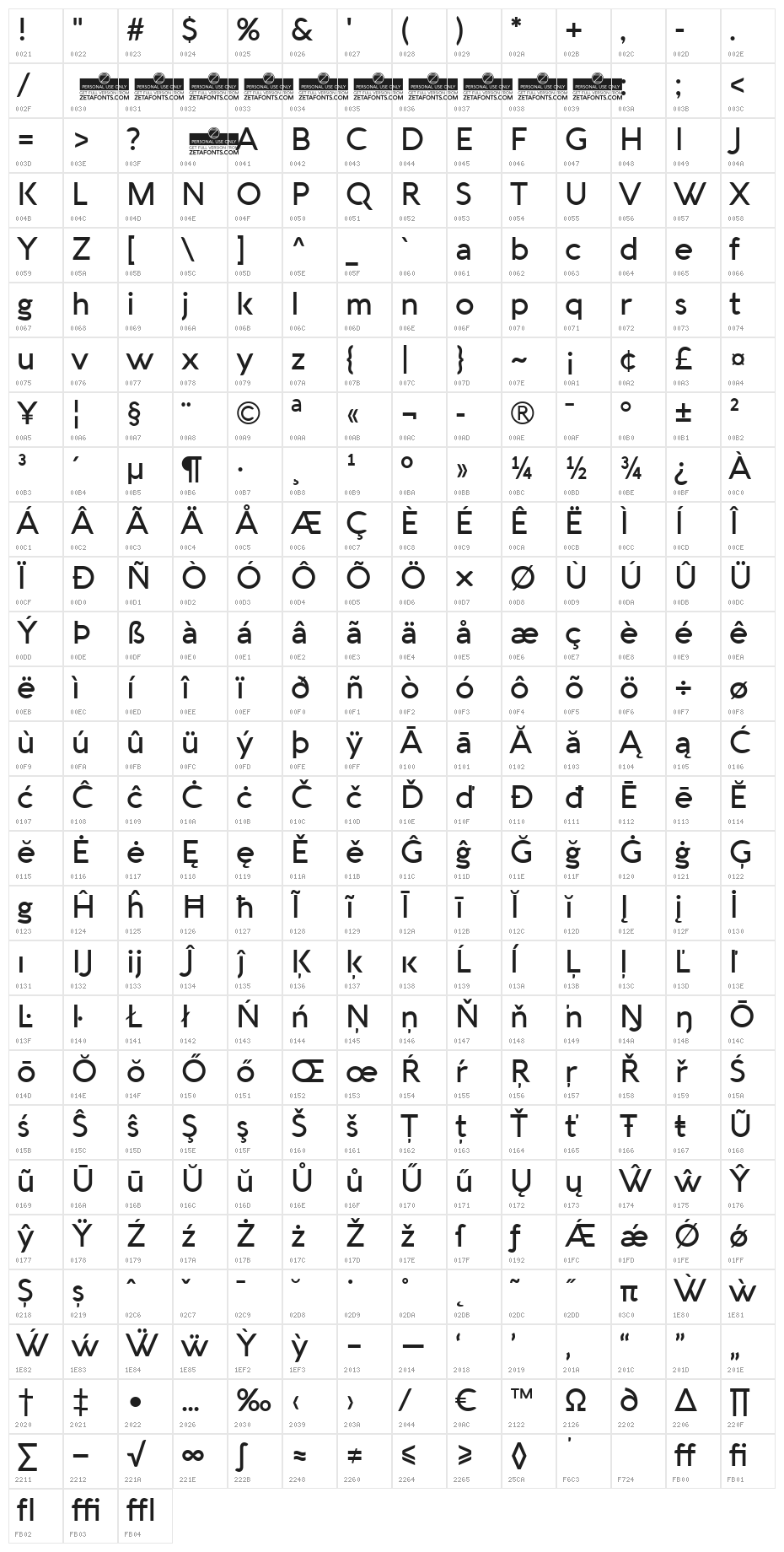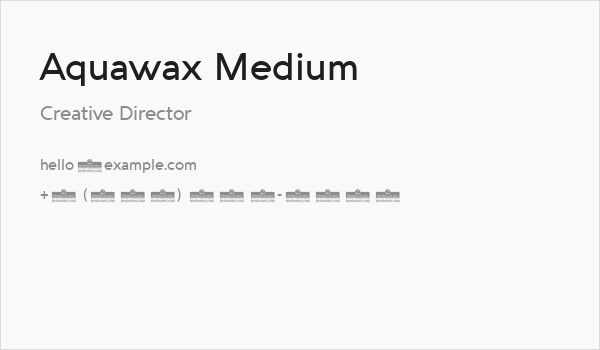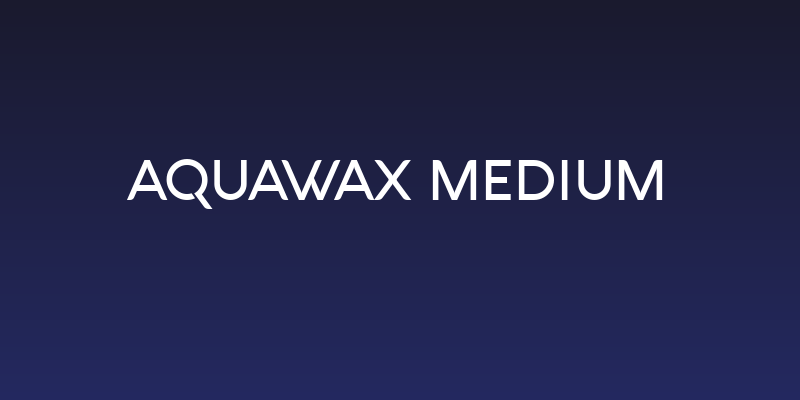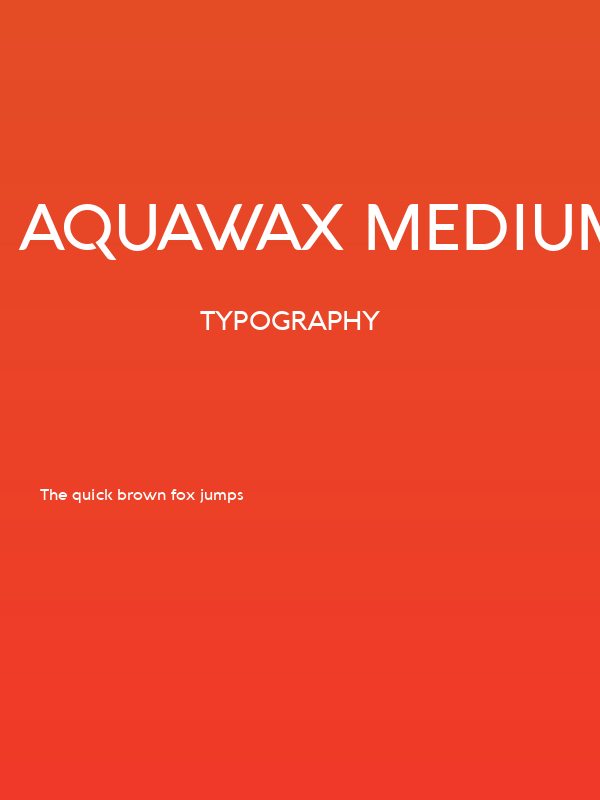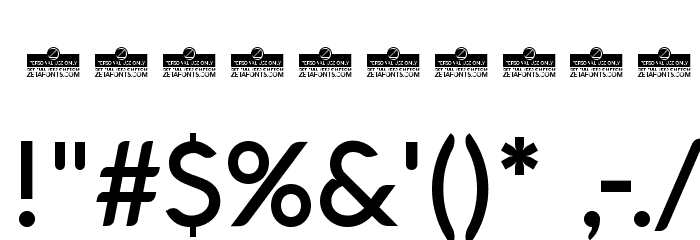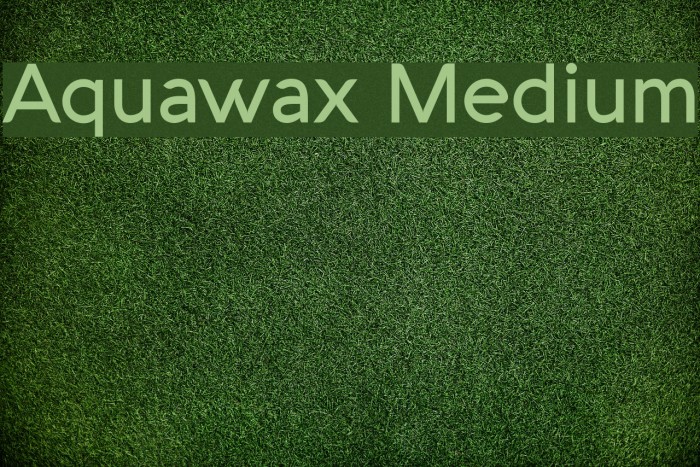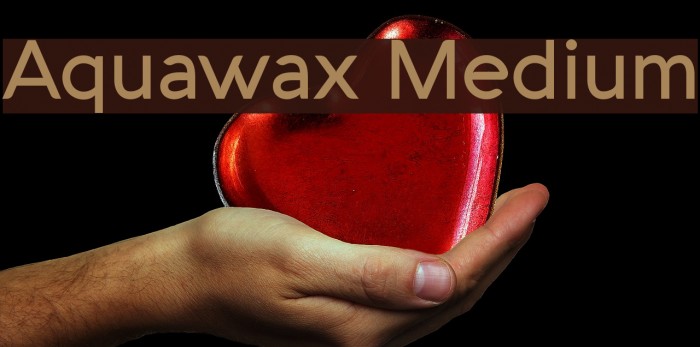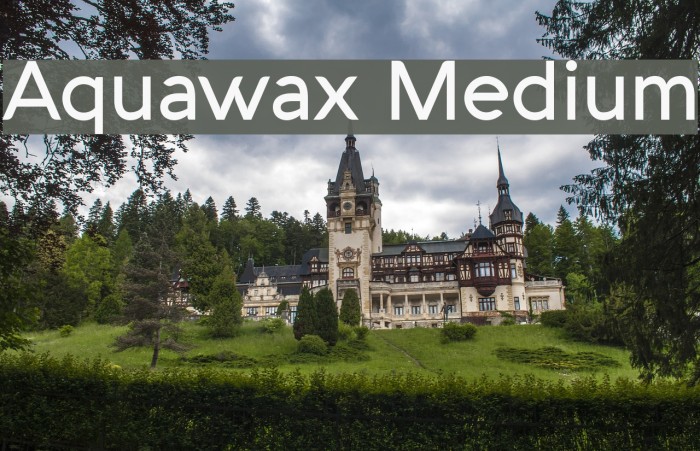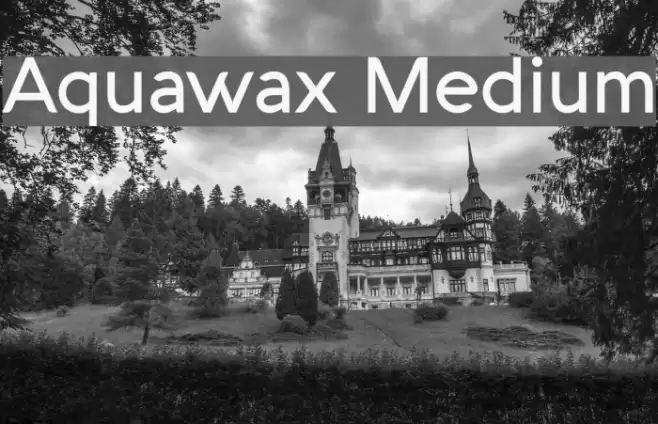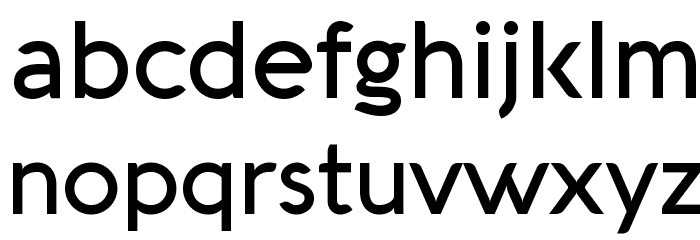
Aquawax Medium Font
✎ Sans Serif
Aquawax Medium Description
This font features a clean and modern sans-serif design, characterized by its smooth curves and balanced proportions. The uppercase letters exhibit a uniform height, contributing to a cohesive and structured appearance. The lowercase letters maintain a consistent x-height, enhancing readability. The numerals are clear and distinct, making them suitable for various applications. Special characters are well-integrated, ensuring versatility in design projects. The overall style is sleek and contemporary, making it ideal for digital and print media.
| Use Case | Headlines, Body text, Logos |
| Proposed Projects | Ideal for branding, web design, advertising, and editorial layouts. |